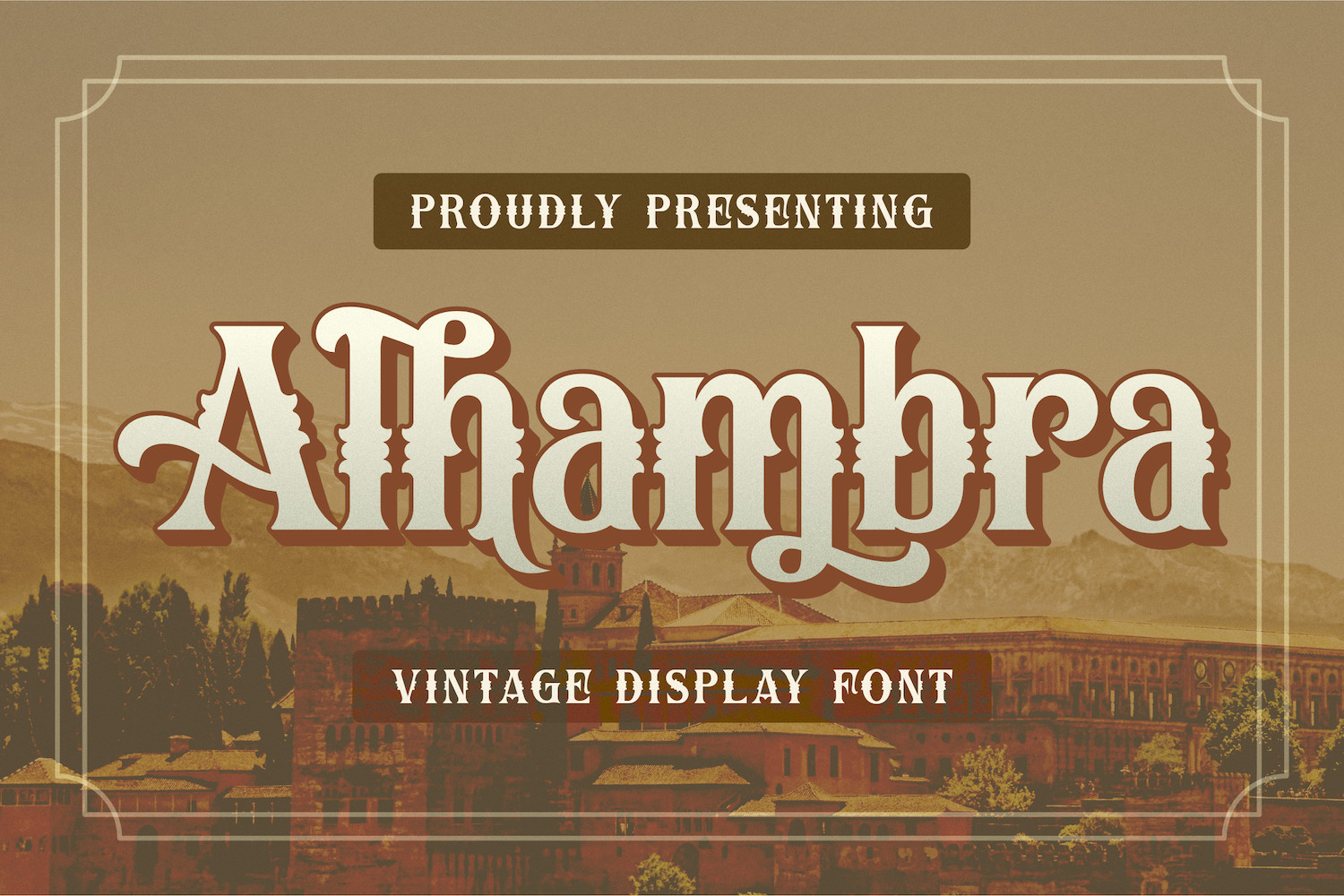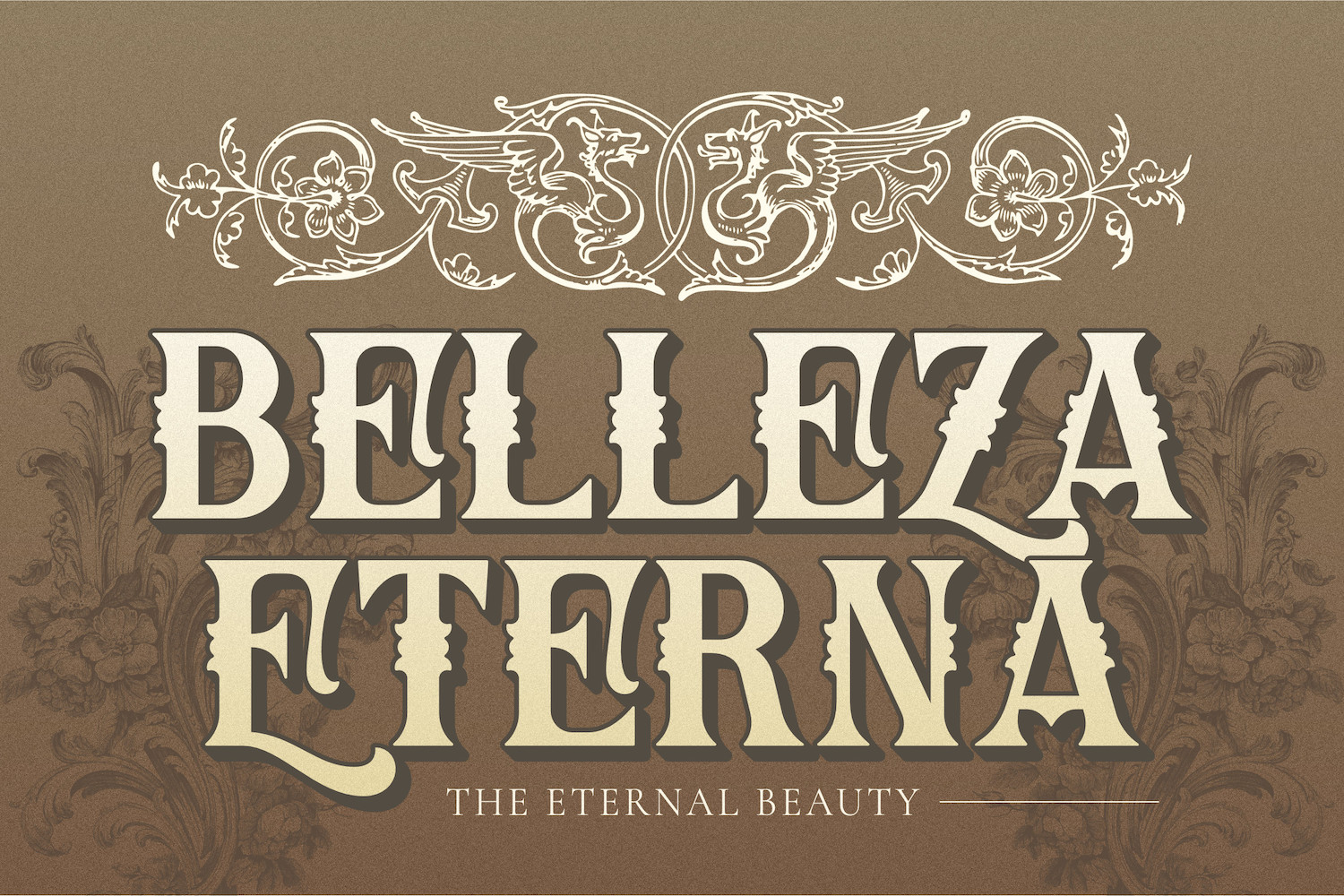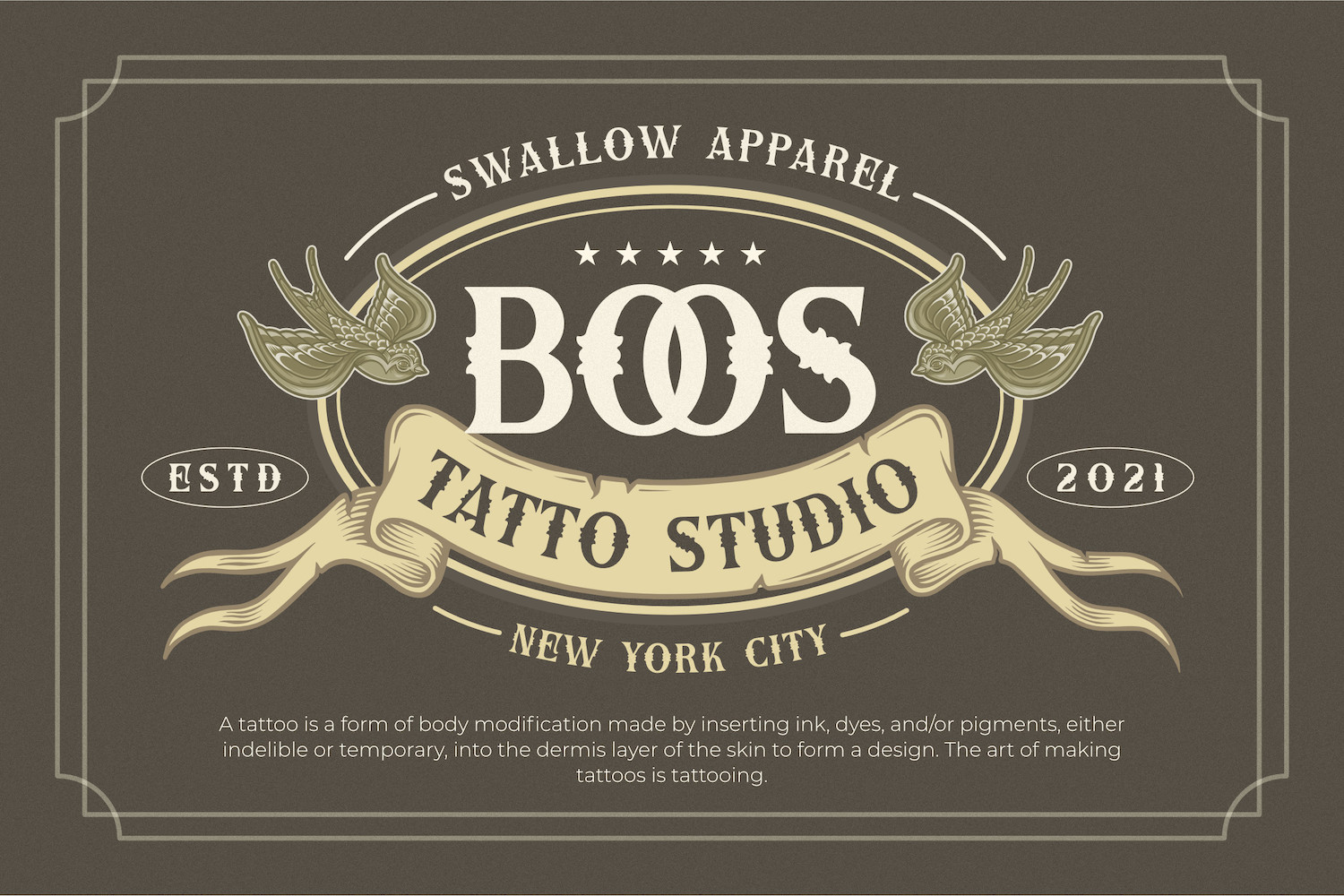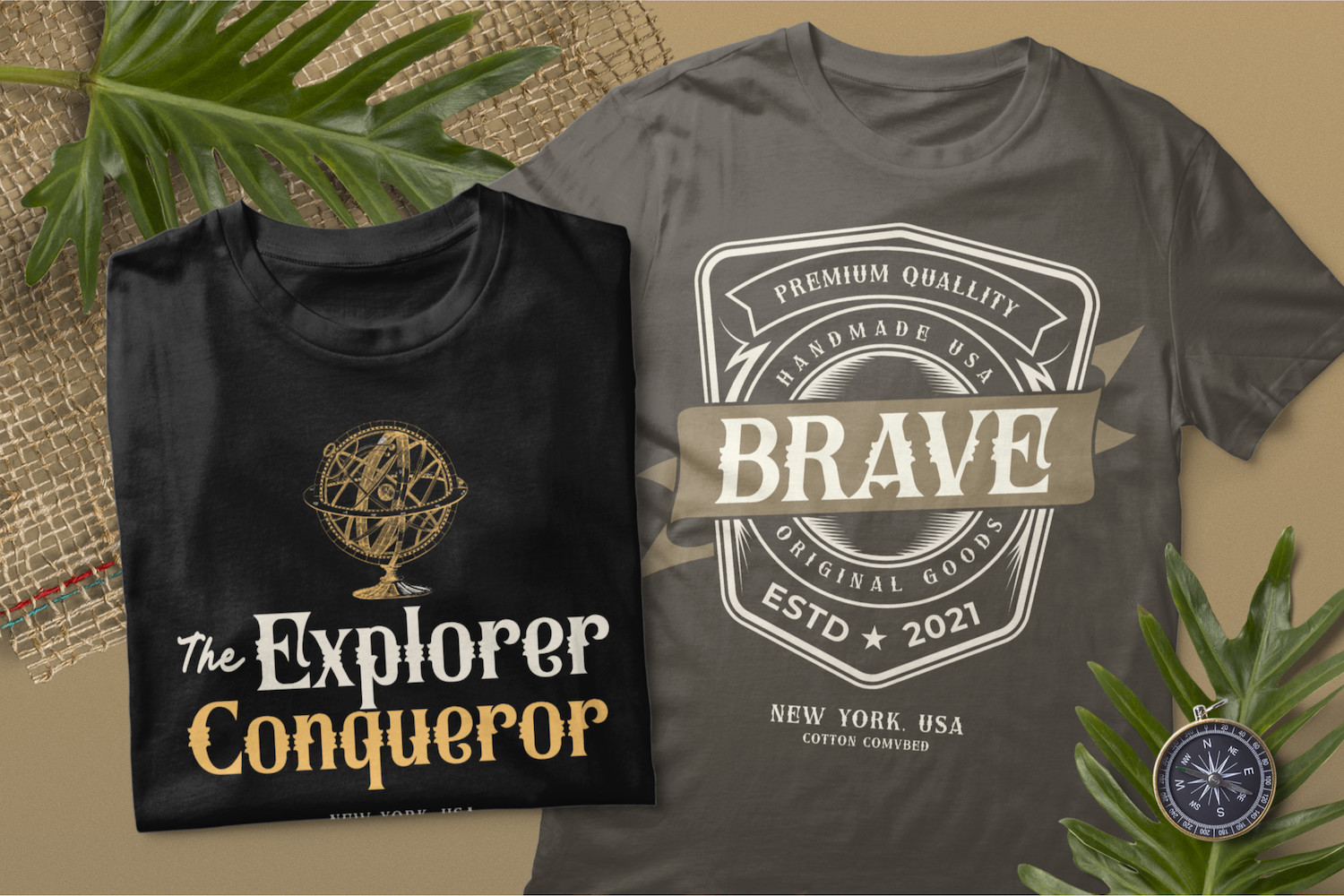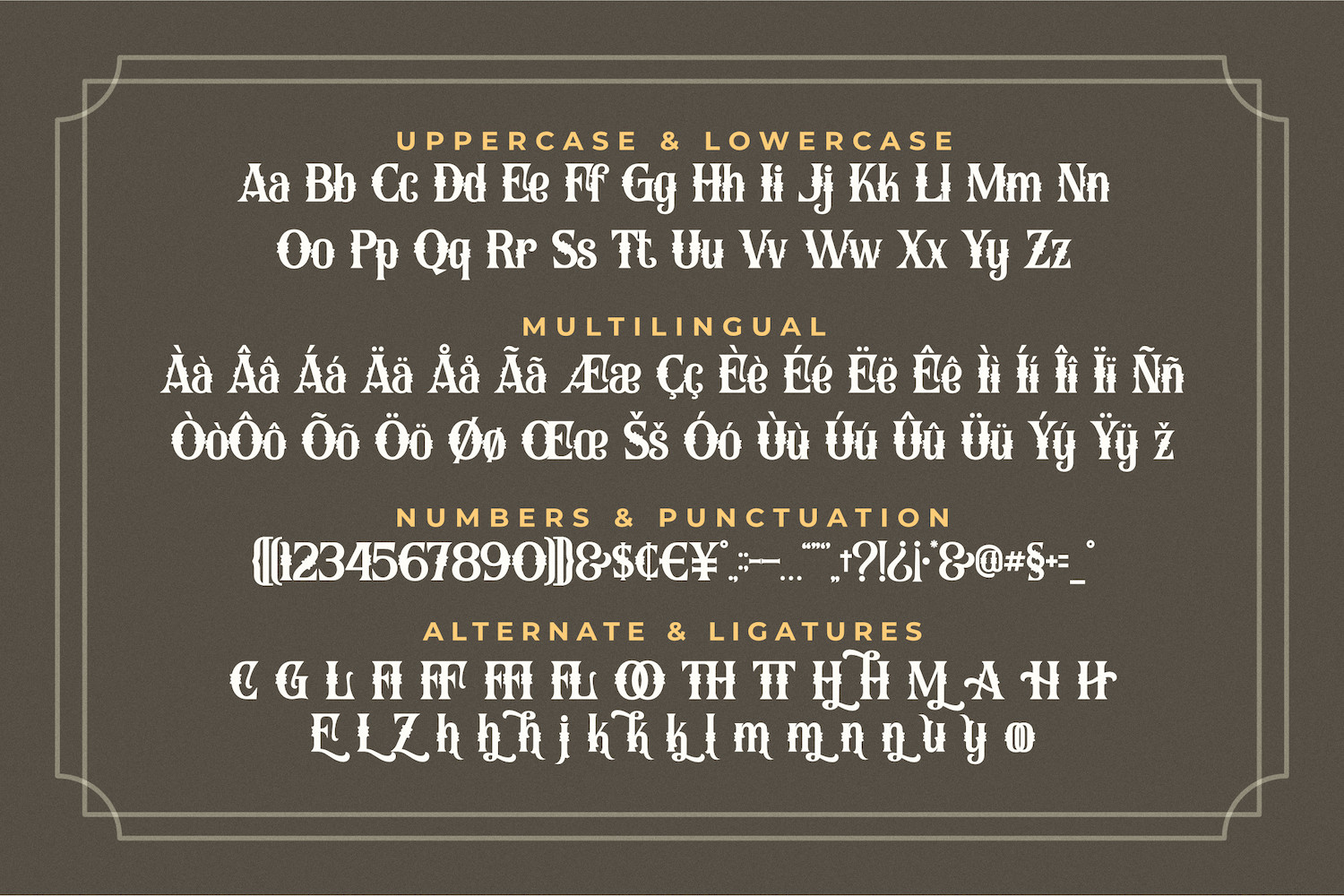
Alhambra is a striking vintage display font that blends ornamental elegance with classic Western influences. Its bold serifs and elaborate decorative strokes make it ideal for branding that seeks to evoke a sense of historical richness and timeless tradition. Each character is crafted with intricate cutouts, creating visual intrigue that stands out in headlines, logos, and signage.
Perfectly suited for apparel design, tattoo studios, product packaging, and antique-style branding, Alhambra includes multilingual support, ligatures, and stylistic alternates to expand creative possibilities. Whether you’re designing for a historic narrative, artisanal goods, or bold vintage promotions, Alhambra brings depth, strength, and sophistication to every letterform.
Alhambra